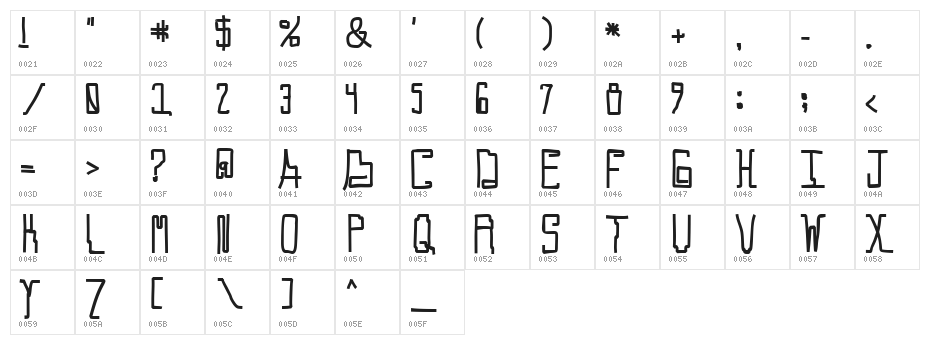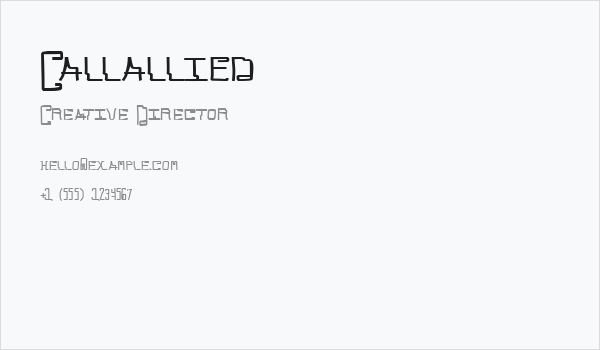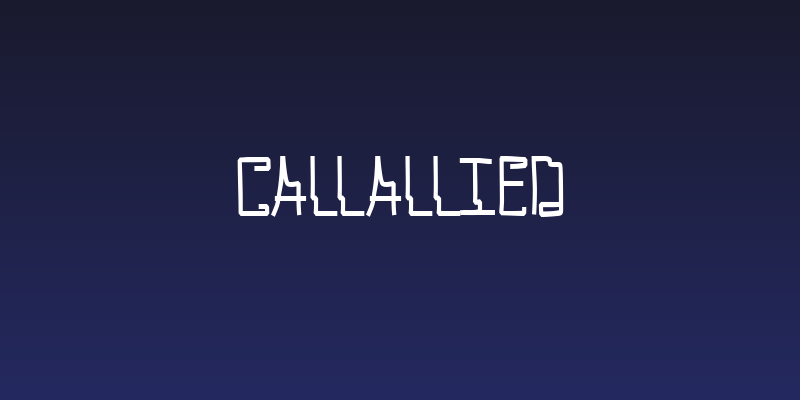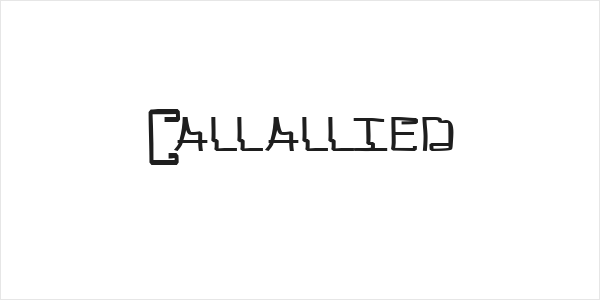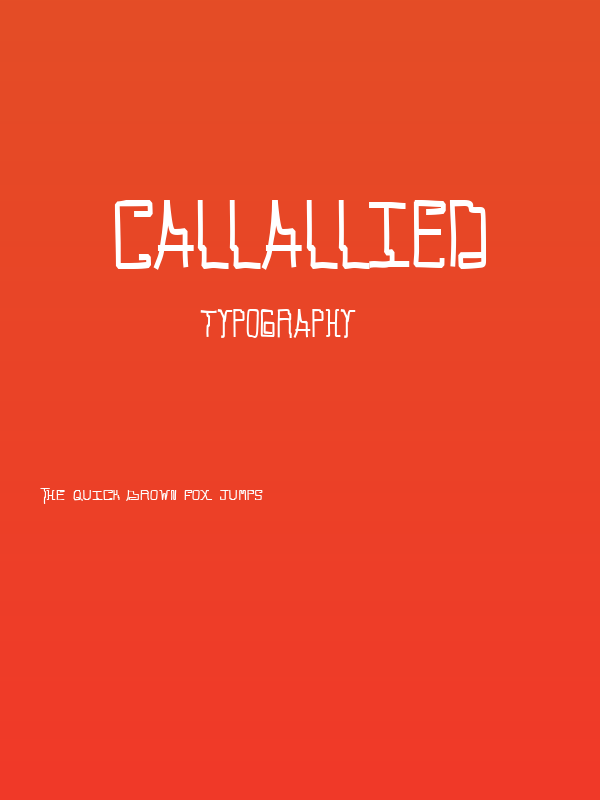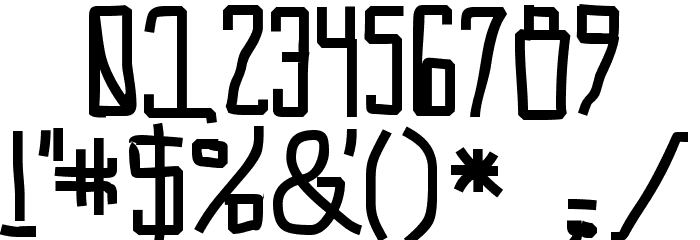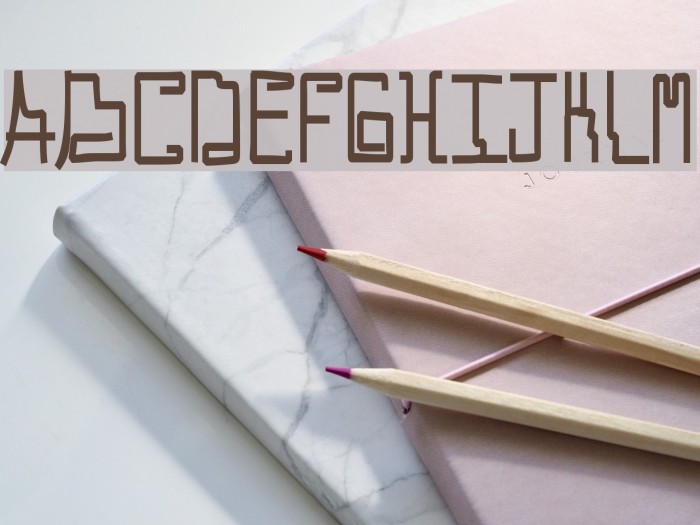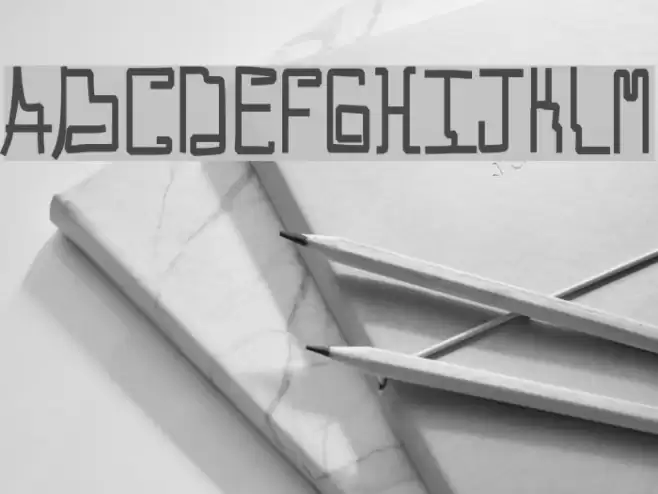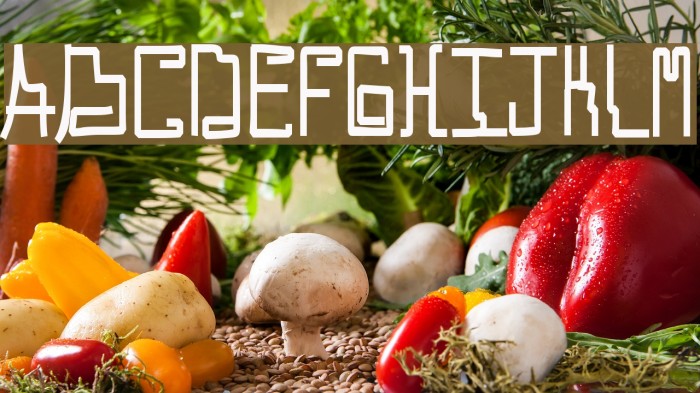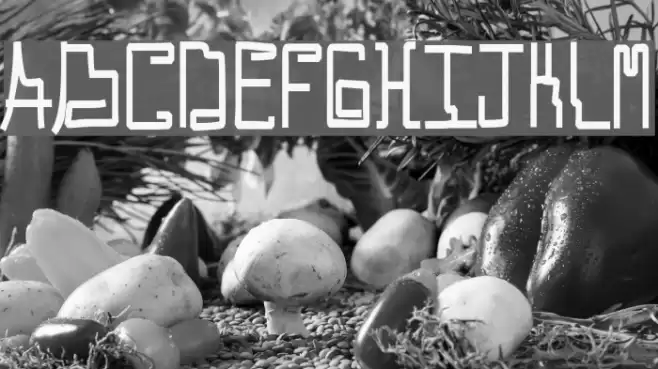
Callallied Font
Callallied Description
This font features a unique, geometric design with a modern twist. The characters are composed of angular lines and sharp edges, giving it a futuristic and digital appearance. The uppercase and lowercase letters maintain a consistent style, with a slight variation in the thickness of the strokes. Numbers and special characters follow the same design principles, ensuring a cohesive look across all elements. The font's distinct style makes it stand out, suitable for projects that require a bold and unconventional aesthetic.
| Use Case | Logos, Headlines, Posters |
| Proposed Projects | Ideal for tech-related branding, digital art, video game interfaces, and futuristic-themed posters. |